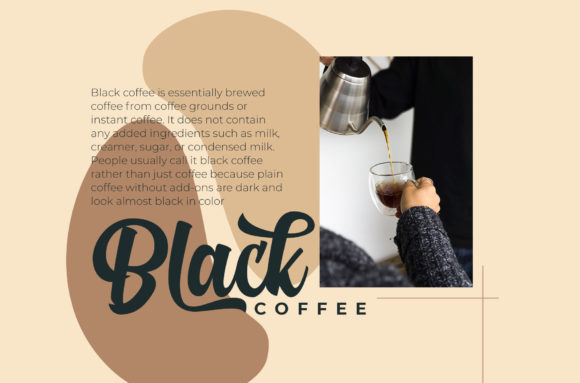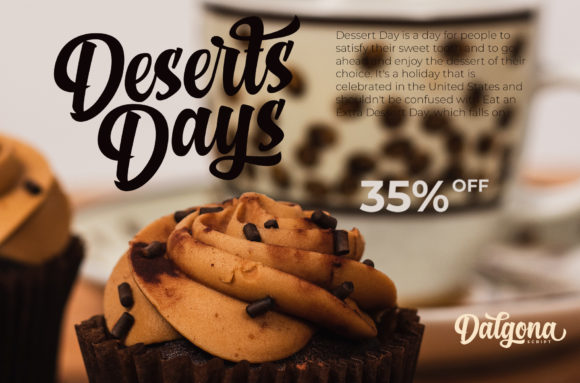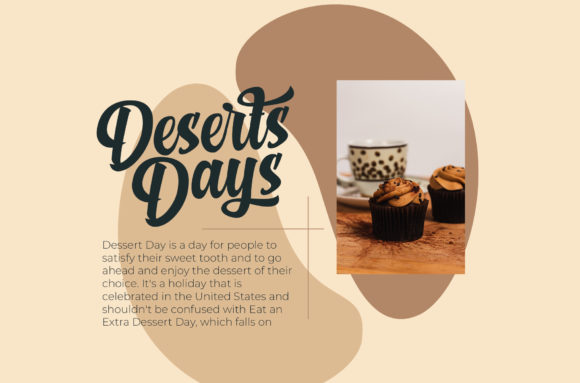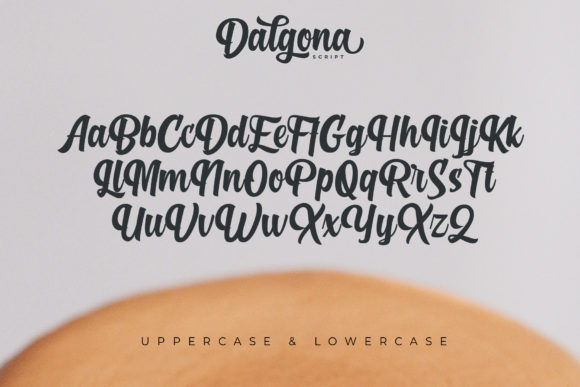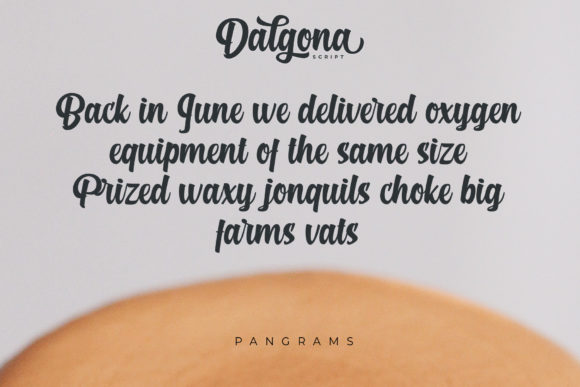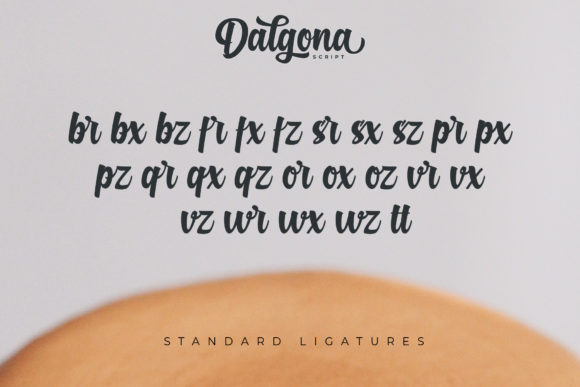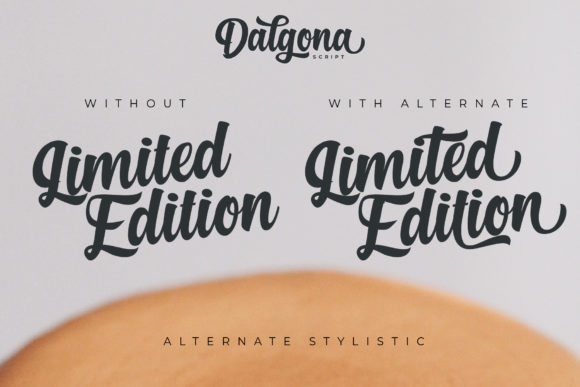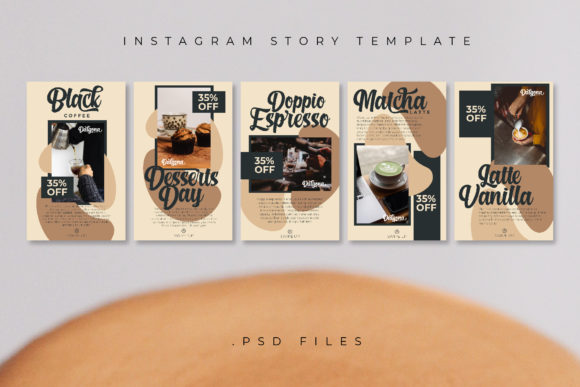
Dalgona Font
About Dalgona Font
Dalgona is a flowing handwritten font, described by an elegant touch, perfect for your favorite projects. Fall in love with its incredibly distinct and timeless style and use it to create spectacular designs!